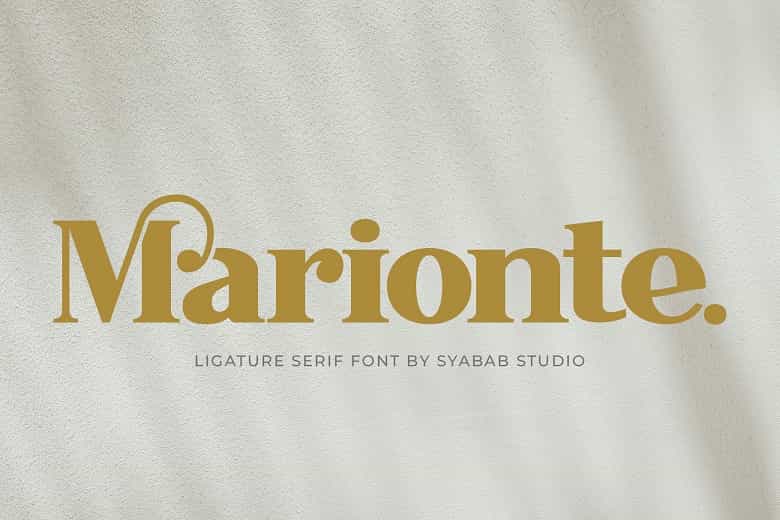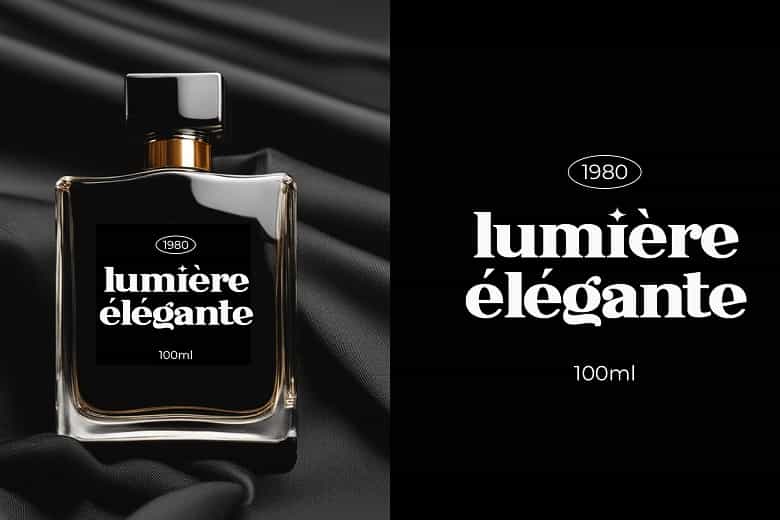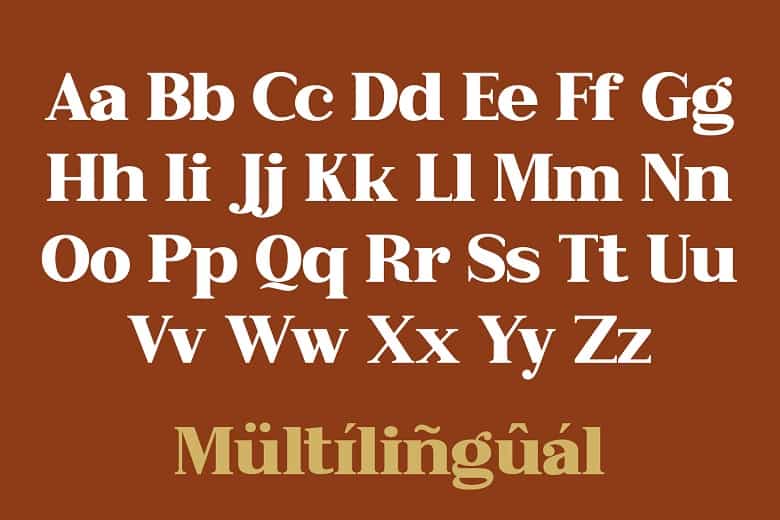
Marionte is a serif font that has a classic style with a modern and luxurious touch, many ligatures and alternatives that you can use in your designs and this will make your design look elegant and unique. This serif font has a number of ‘lowercase’ (A, E, U, I, O) and Uppercase alternate characters.